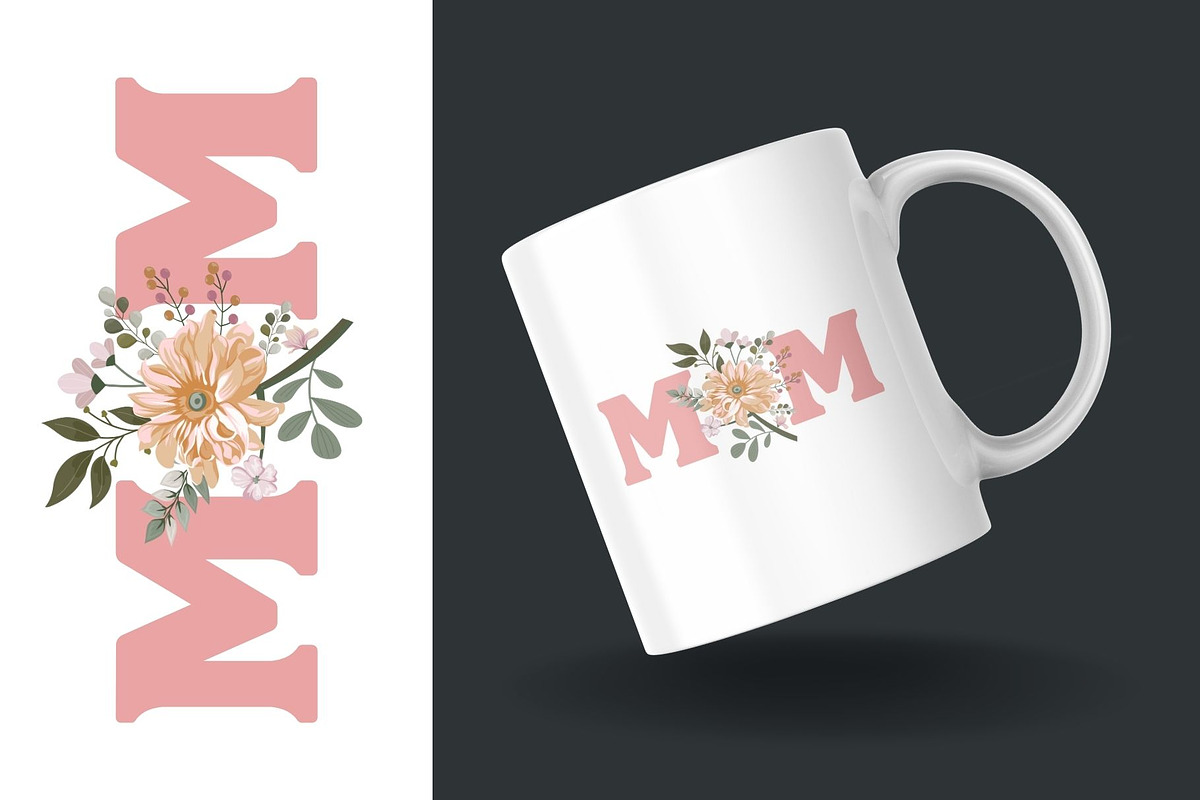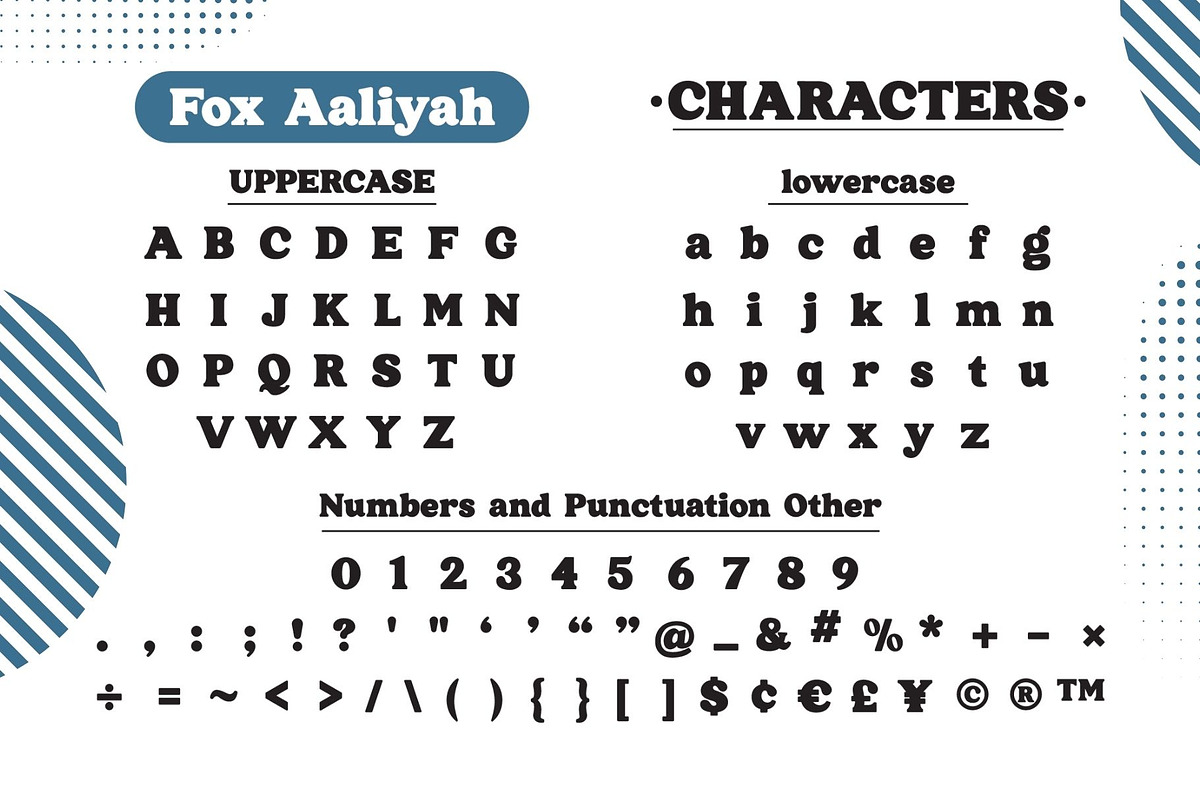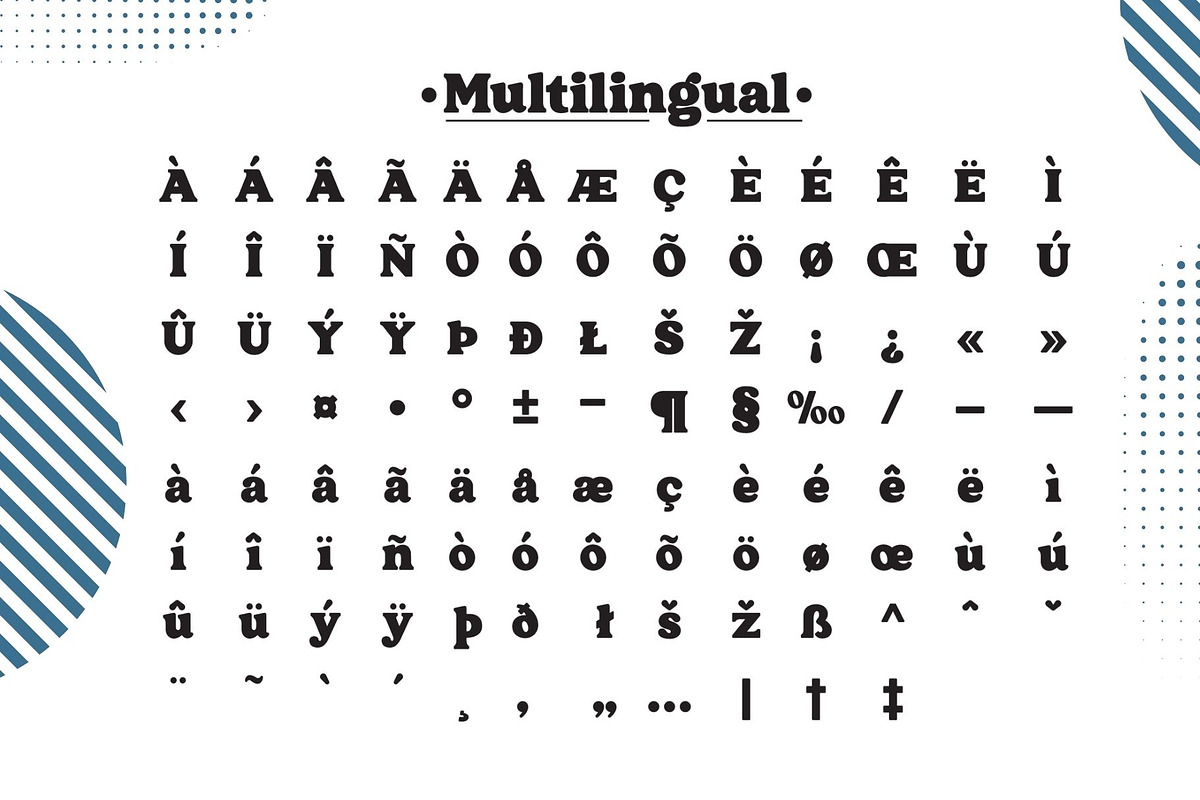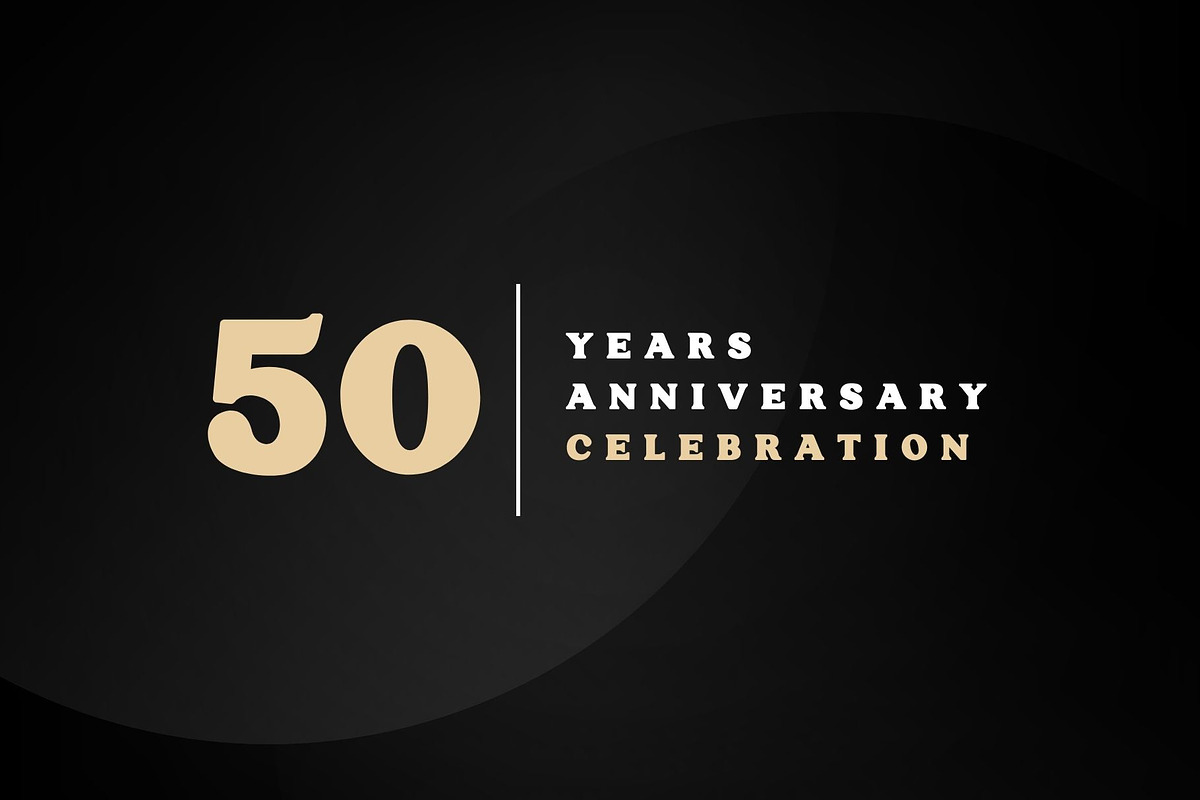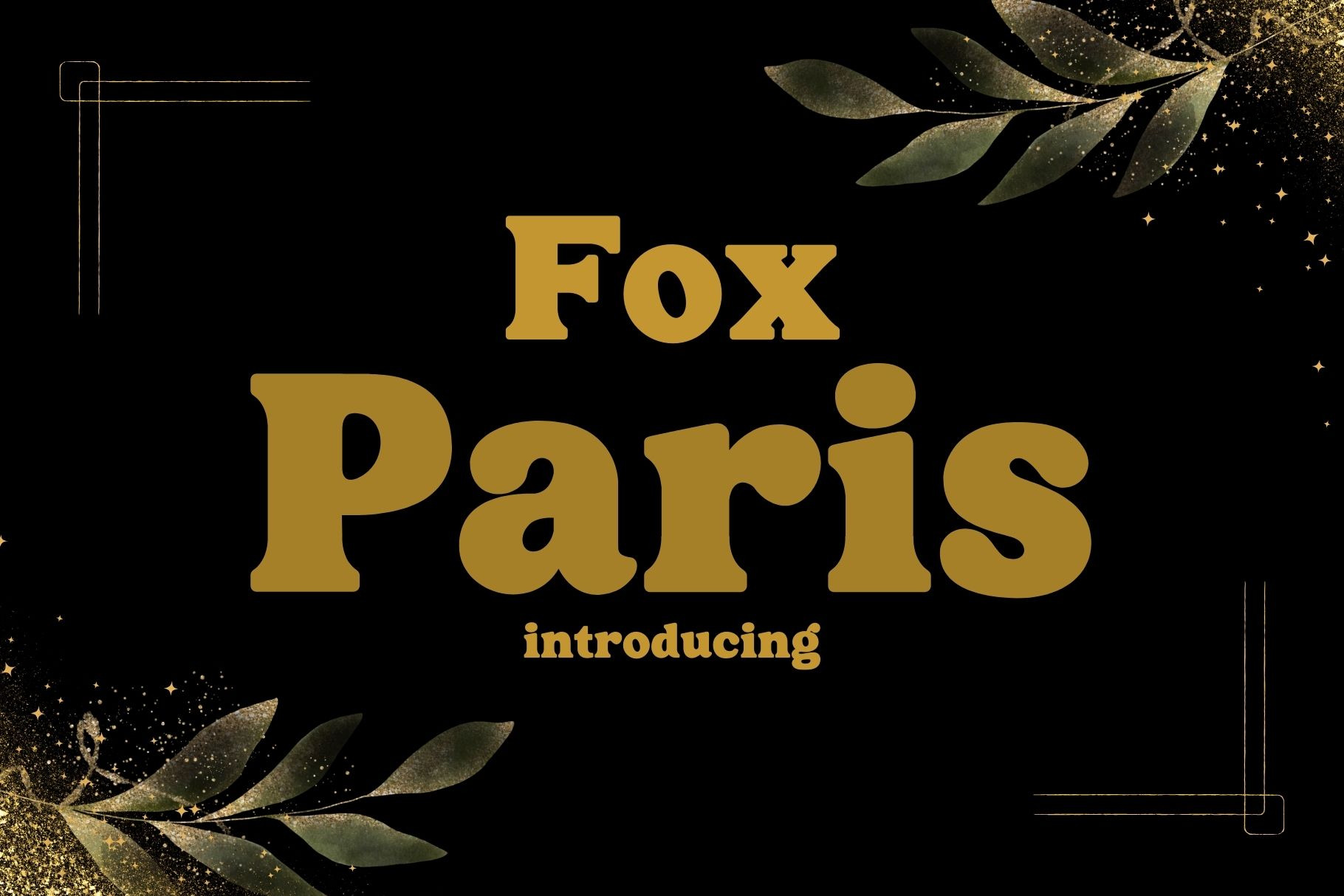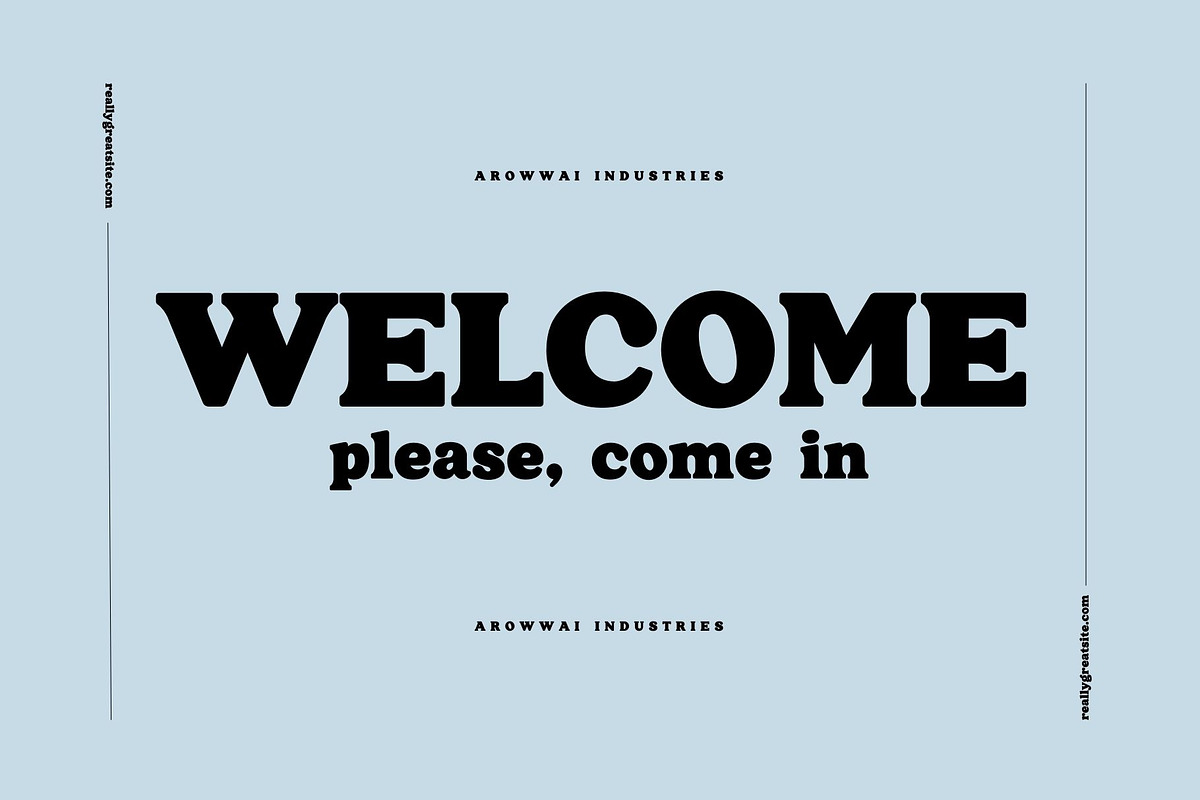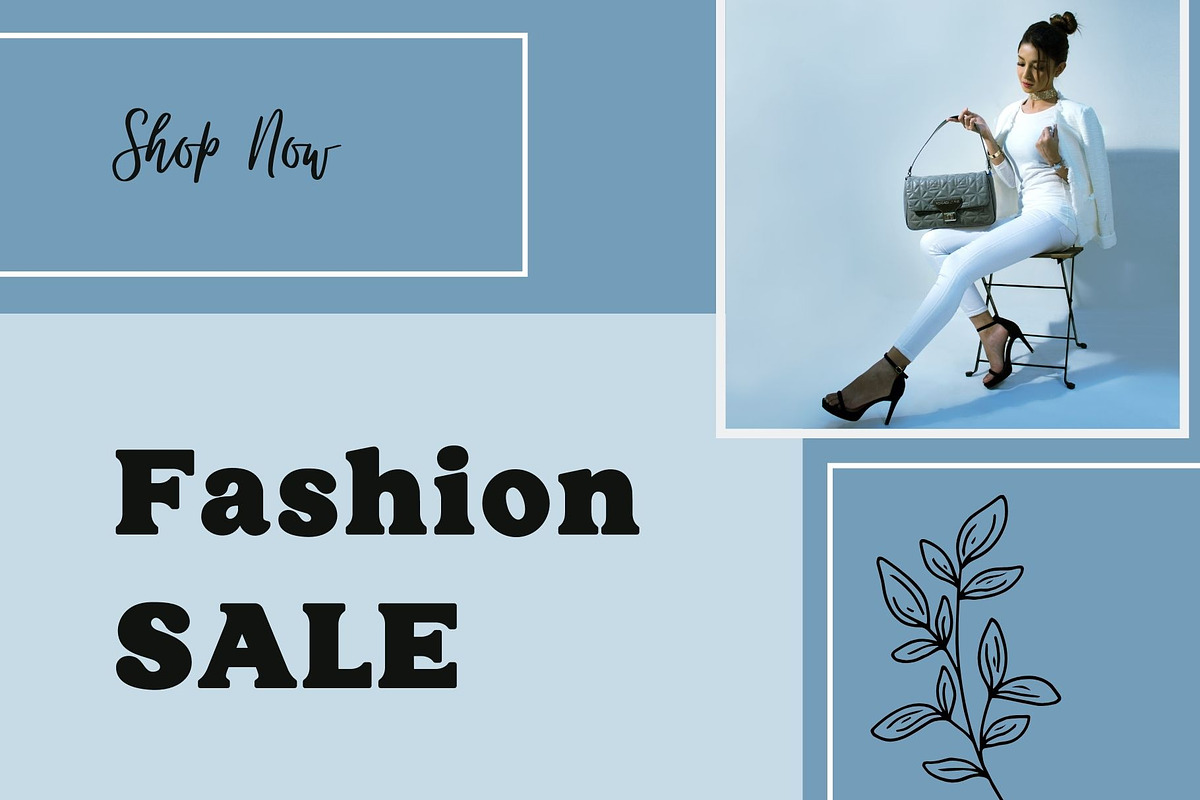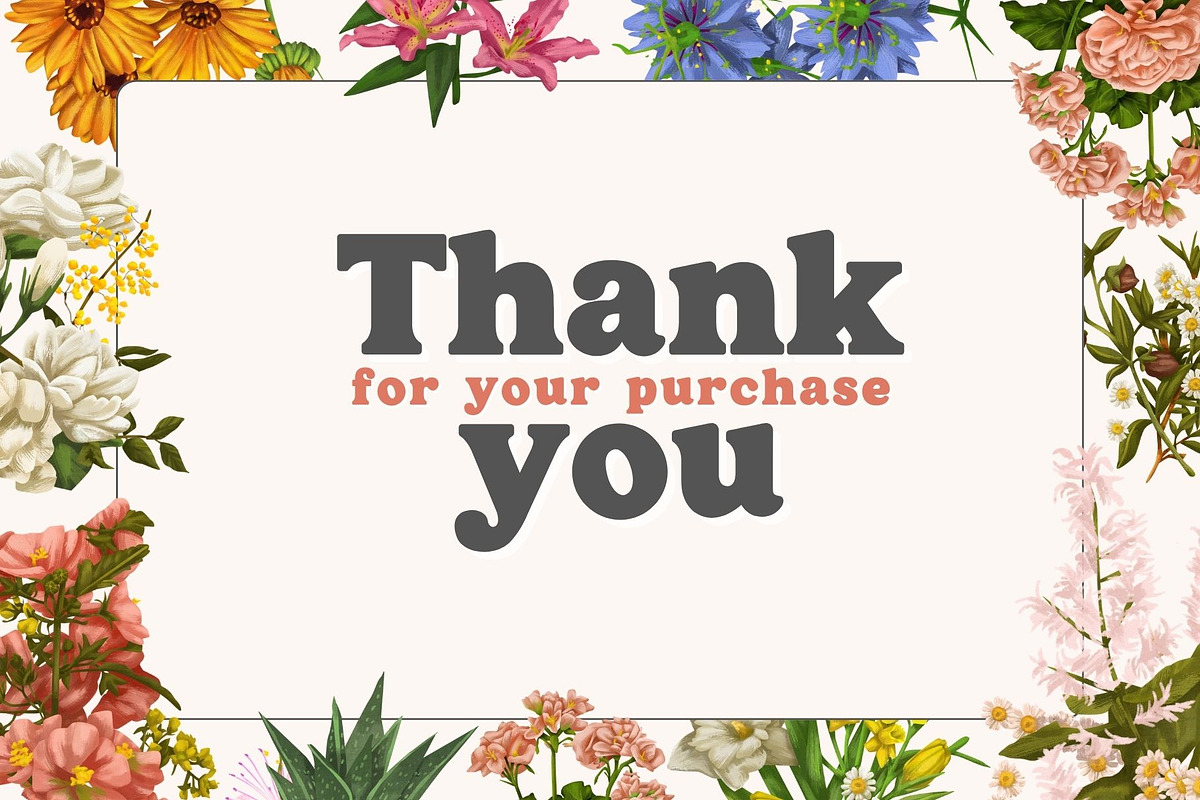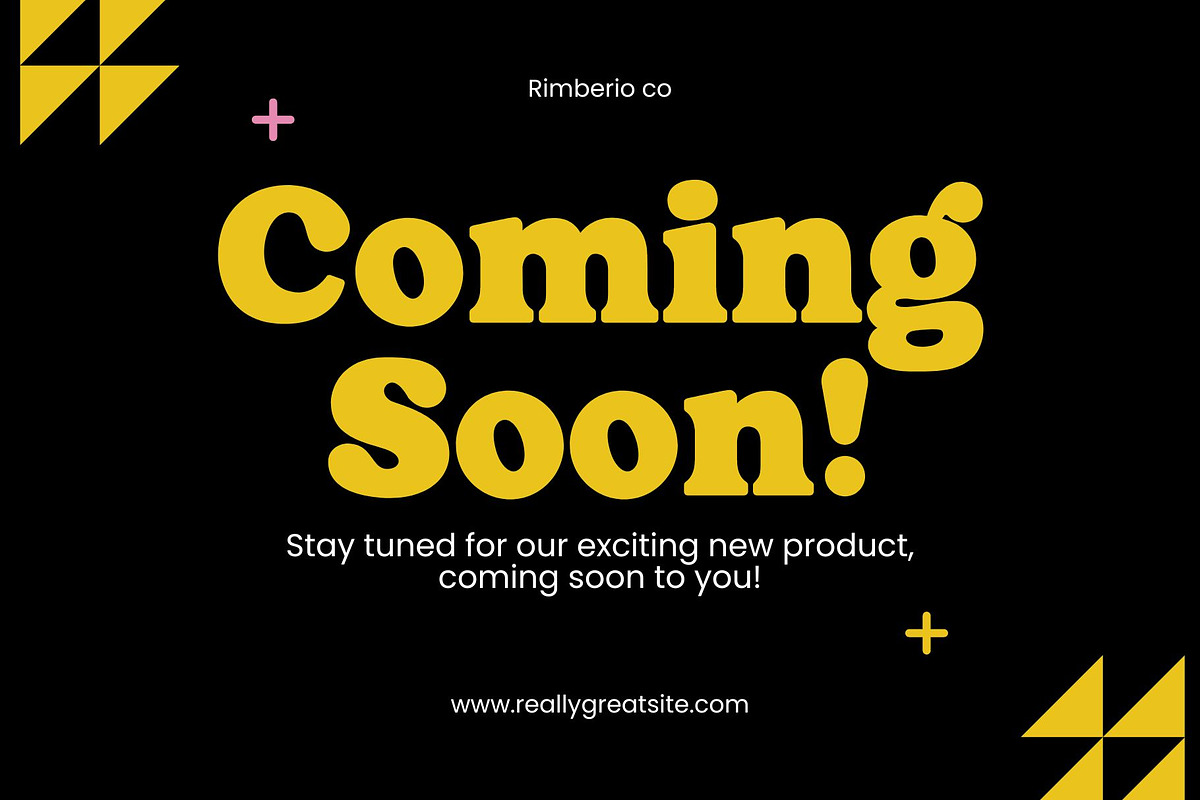
Fox Paris Font
Fox Paris is a bold font and is designed to be versatile. Compatible with both modern and vintage design styles. You can use it for various projects, such as blog posts, logos, branding, ads, invitations, greeting cards, planners, photo albums, decorations, and much more.